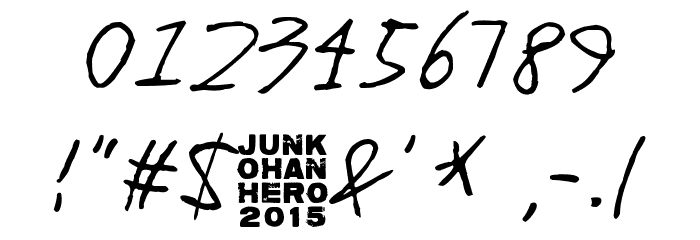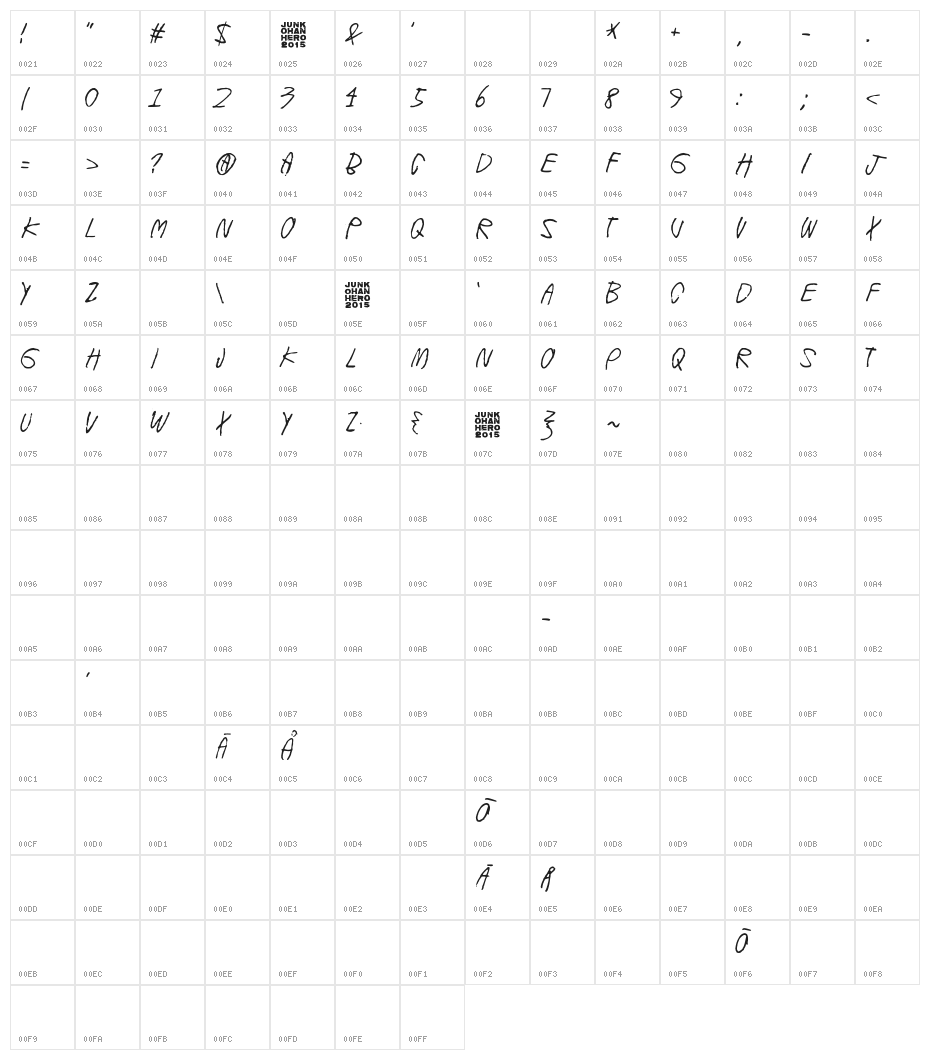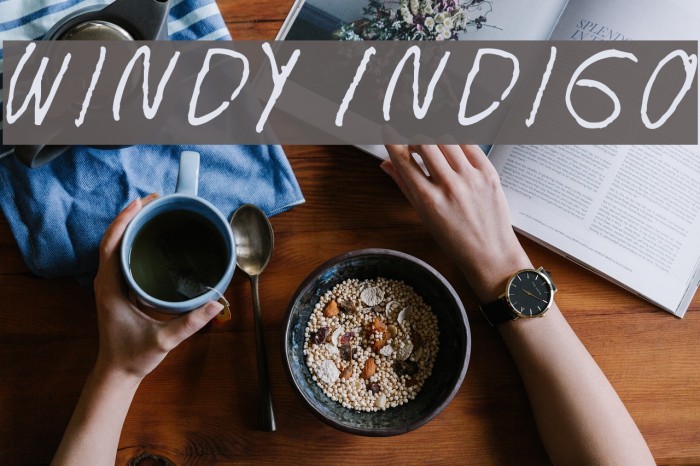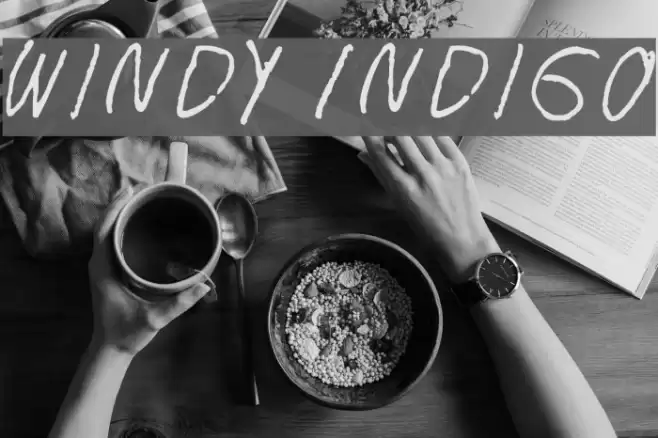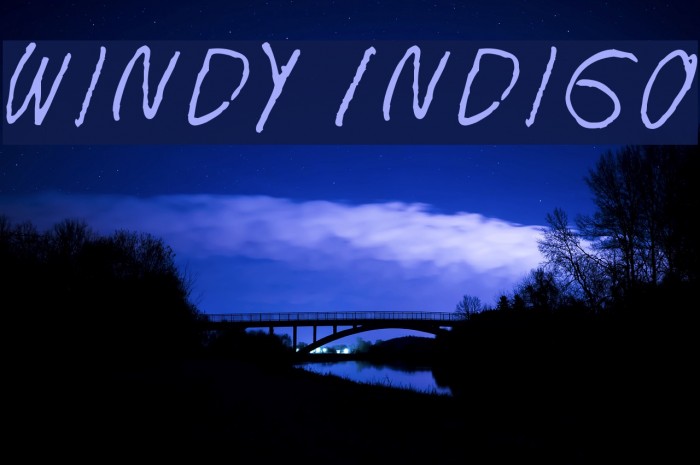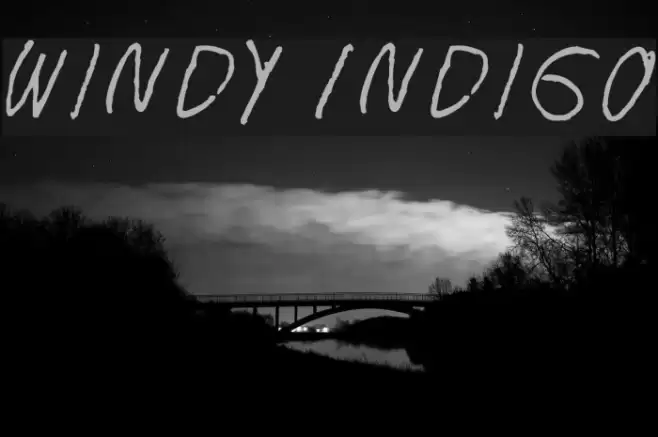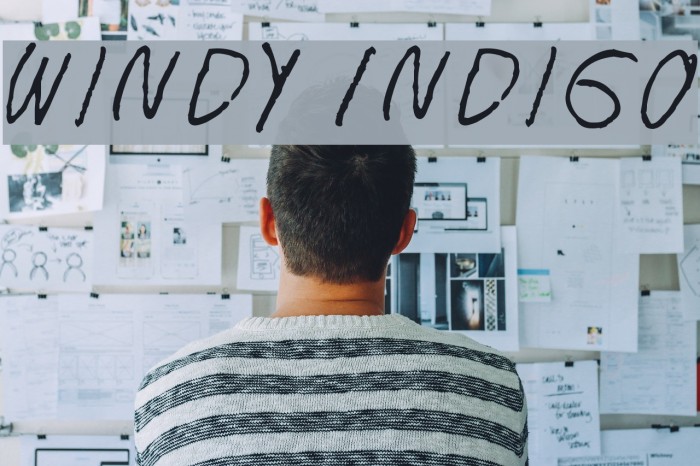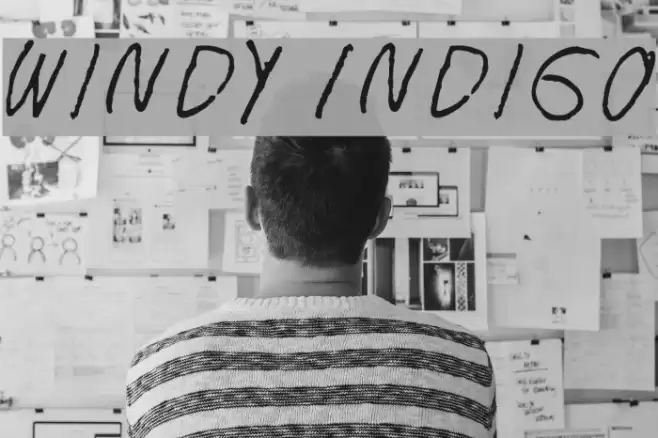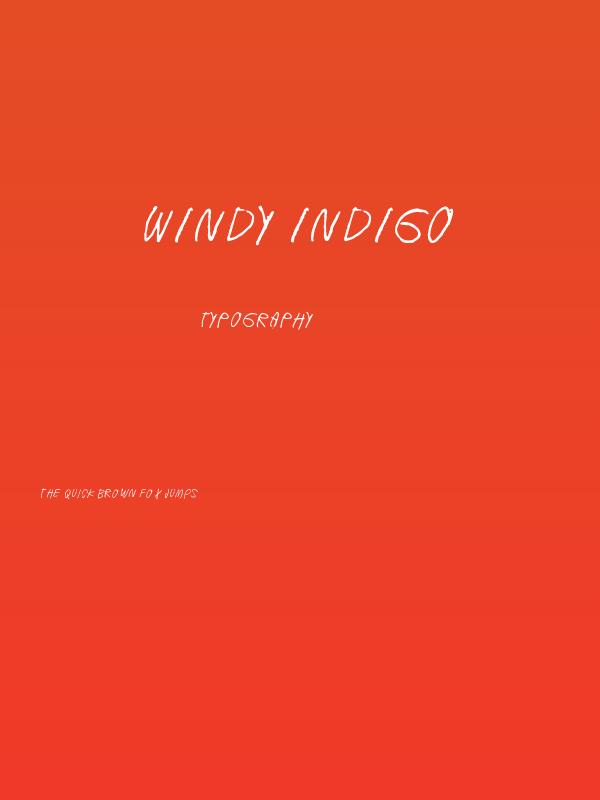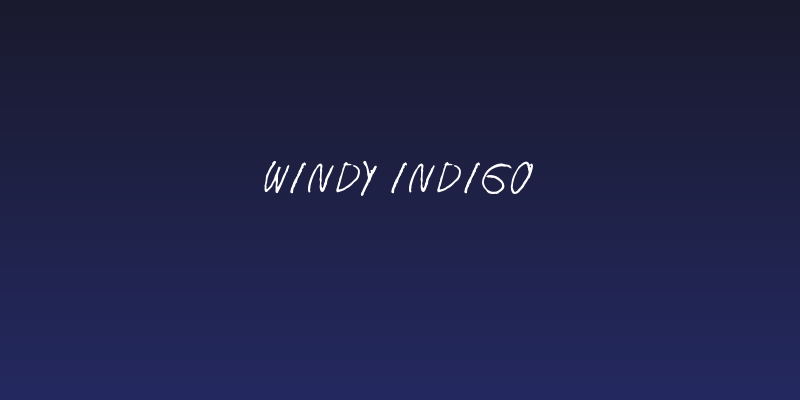
Windy Indigo Font
Windy Indigo Description
This font features a handwritten style with a casual and dynamic appearance. The letters are slightly slanted, giving a sense of motion and fluidity. The strokes are uneven, with varying thickness that adds a personal touch, reminiscent of quick, expressive handwriting. The uppercase and lowercase letters maintain a consistent style, while the numerals and special characters complement the overall aesthetic. This font exudes a sense of spontaneity and creativity, making it suitable for projects that require a personal or artistic flair.
| Overall Style | Casual, Artistic |
| Use Case | Logos, Invitations, Posters |
| Proposed Projects | Ideal for personal invitations, artistic posters, creative branding, and informal communication materials. |